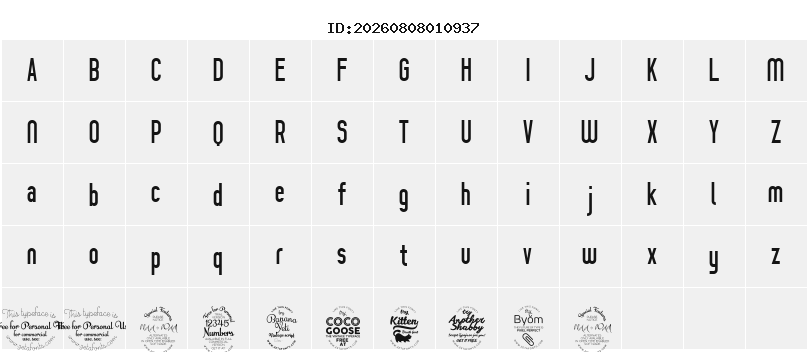
Prozak Preview
• Font Name: Prozak
• Designer: Francesco Canovaro
• Manufacturer: studio Kmzero
About Prozak.ttf
Prozak.ttf is a modern, elegant sans-serif font designed for ultimate readability and visual harmony. Perfect for branding, headlines, web design, and print materials.